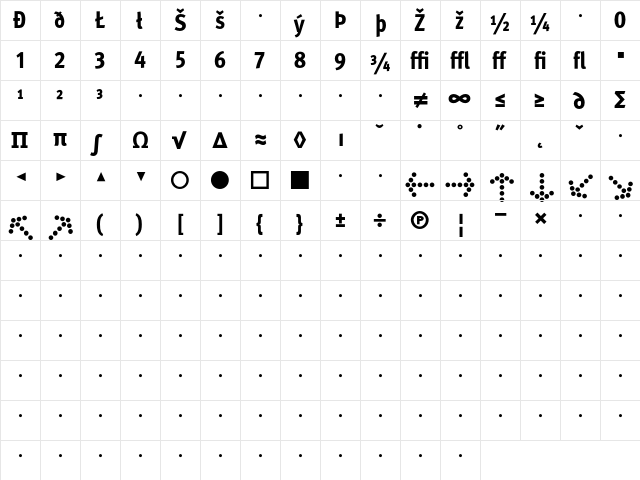
MetaCondExtraBold Expert Font Preview
Design Context for MetaCondExtraBold Typeface
MetaCondExtraBold takes a measured approach to typography — its balanced proportions and neutral character make it a reliable workhorse for both digital and print work. The heavy weight commands attention and anchors typographic hierarchies. The condensed width makes it efficient for tight spaces without sacrificing legibility.